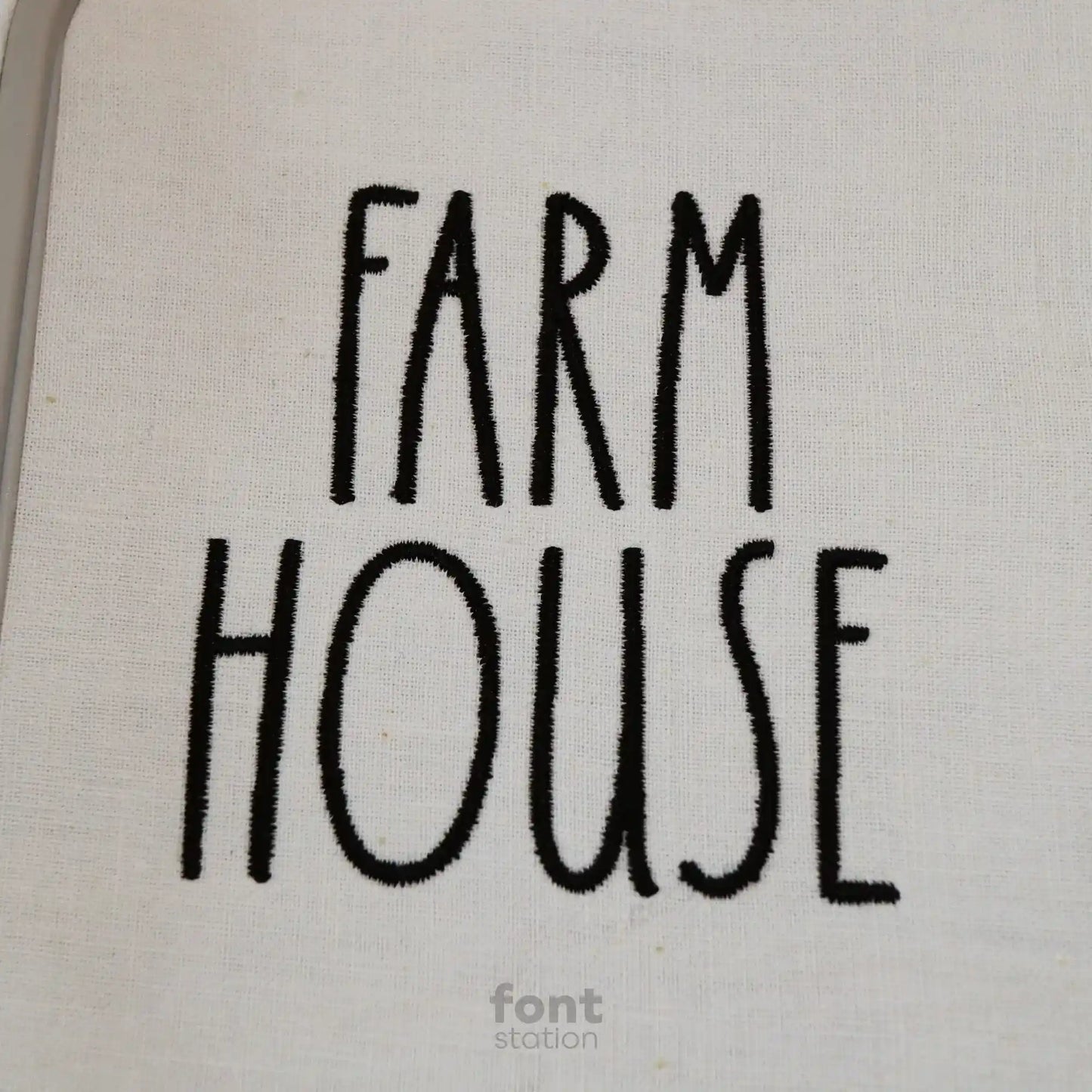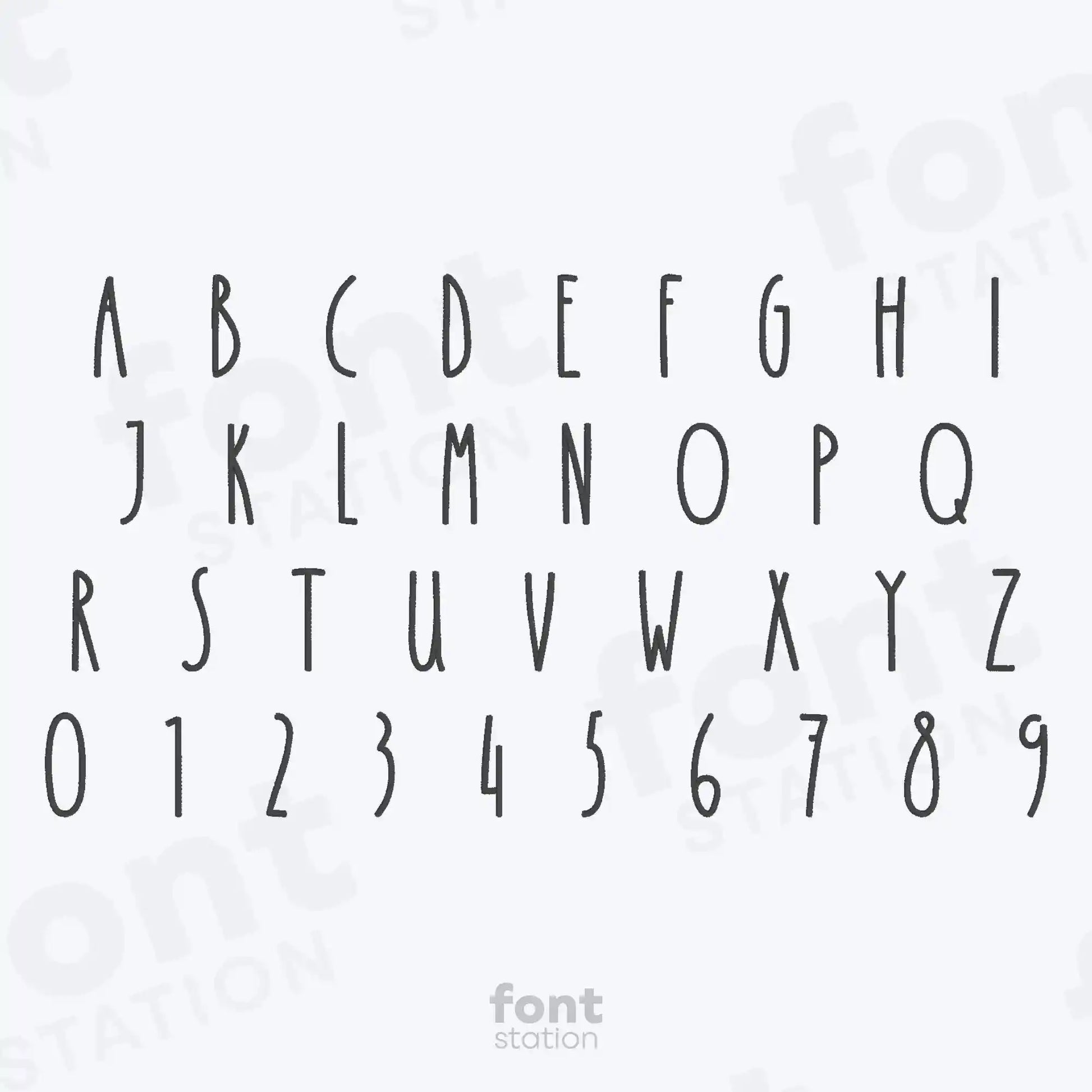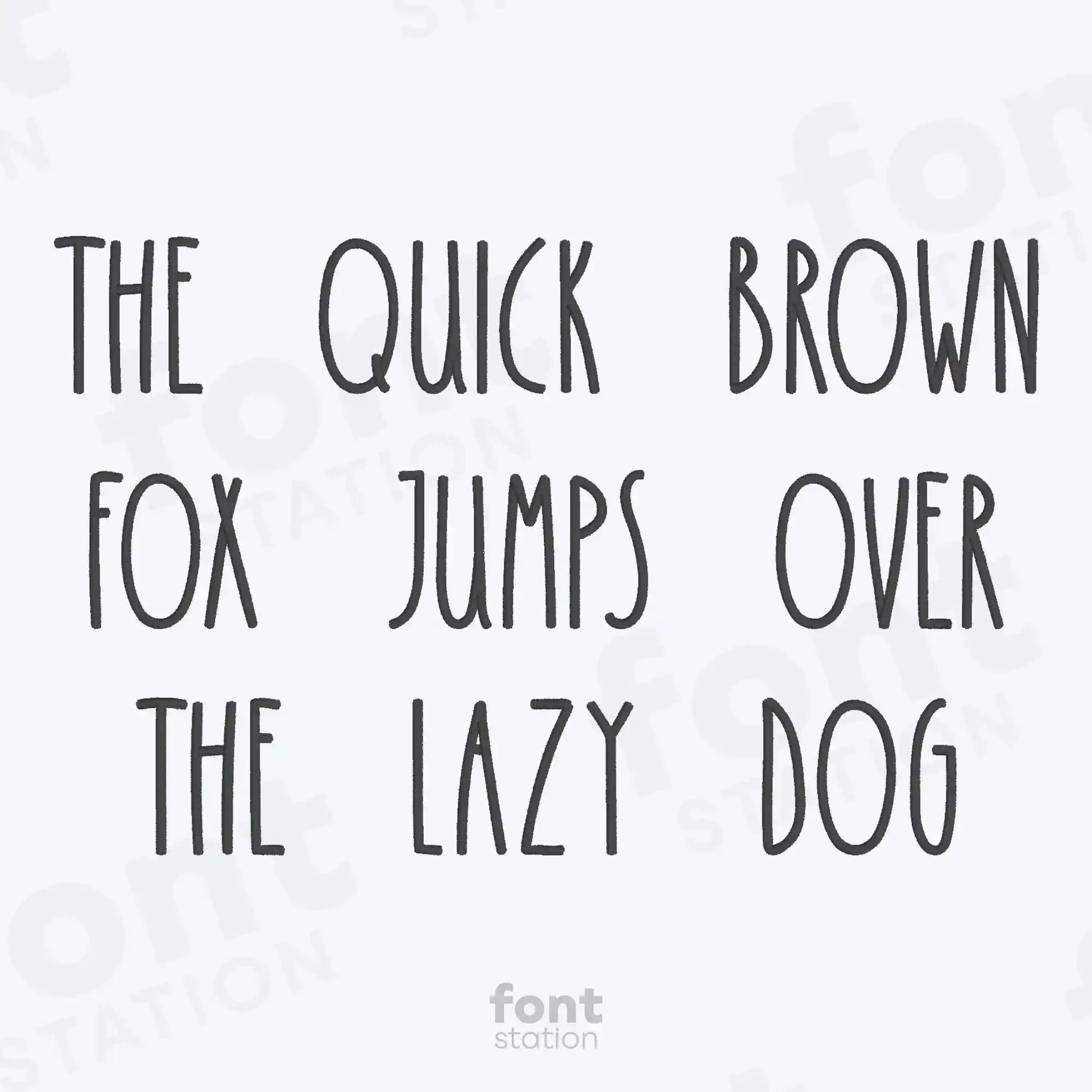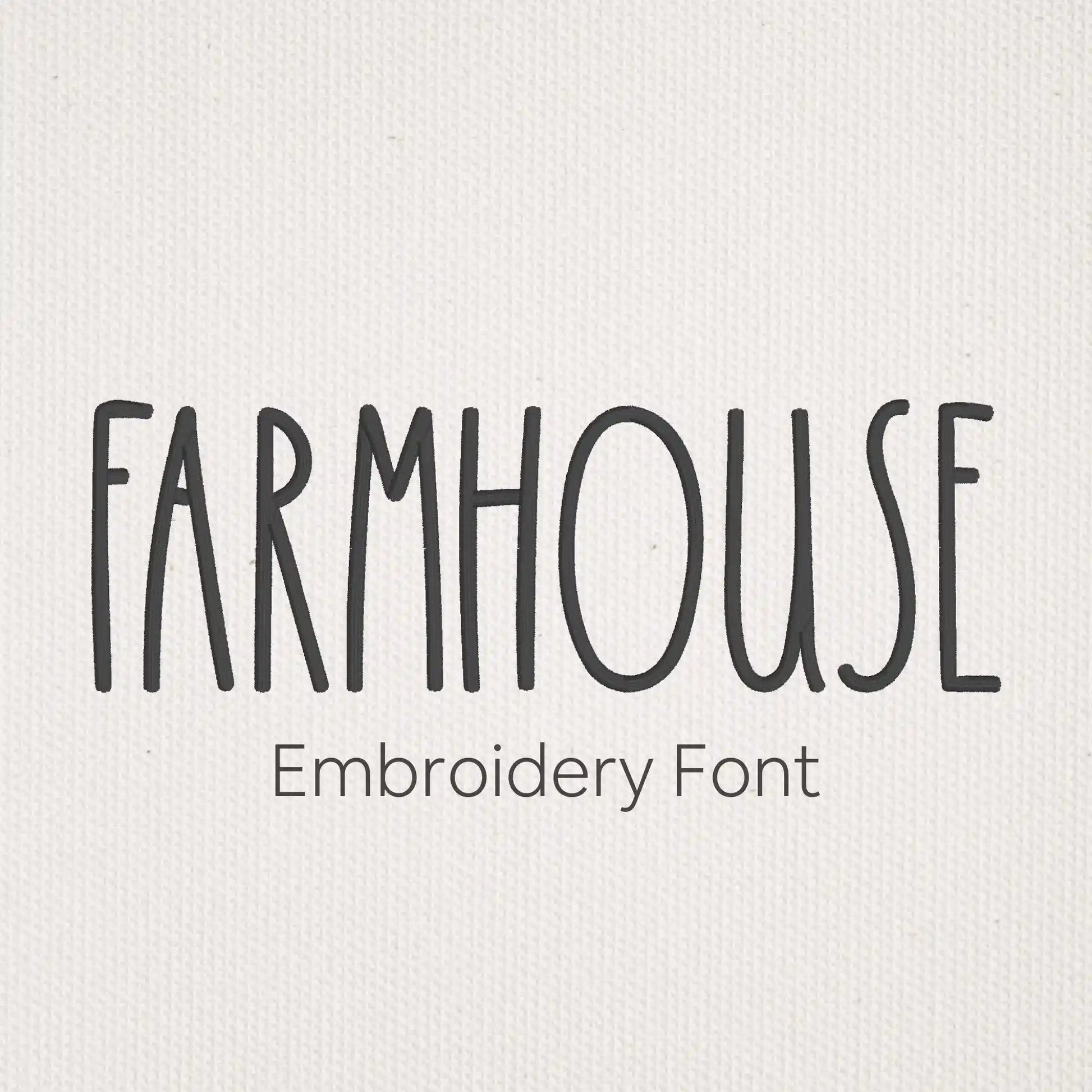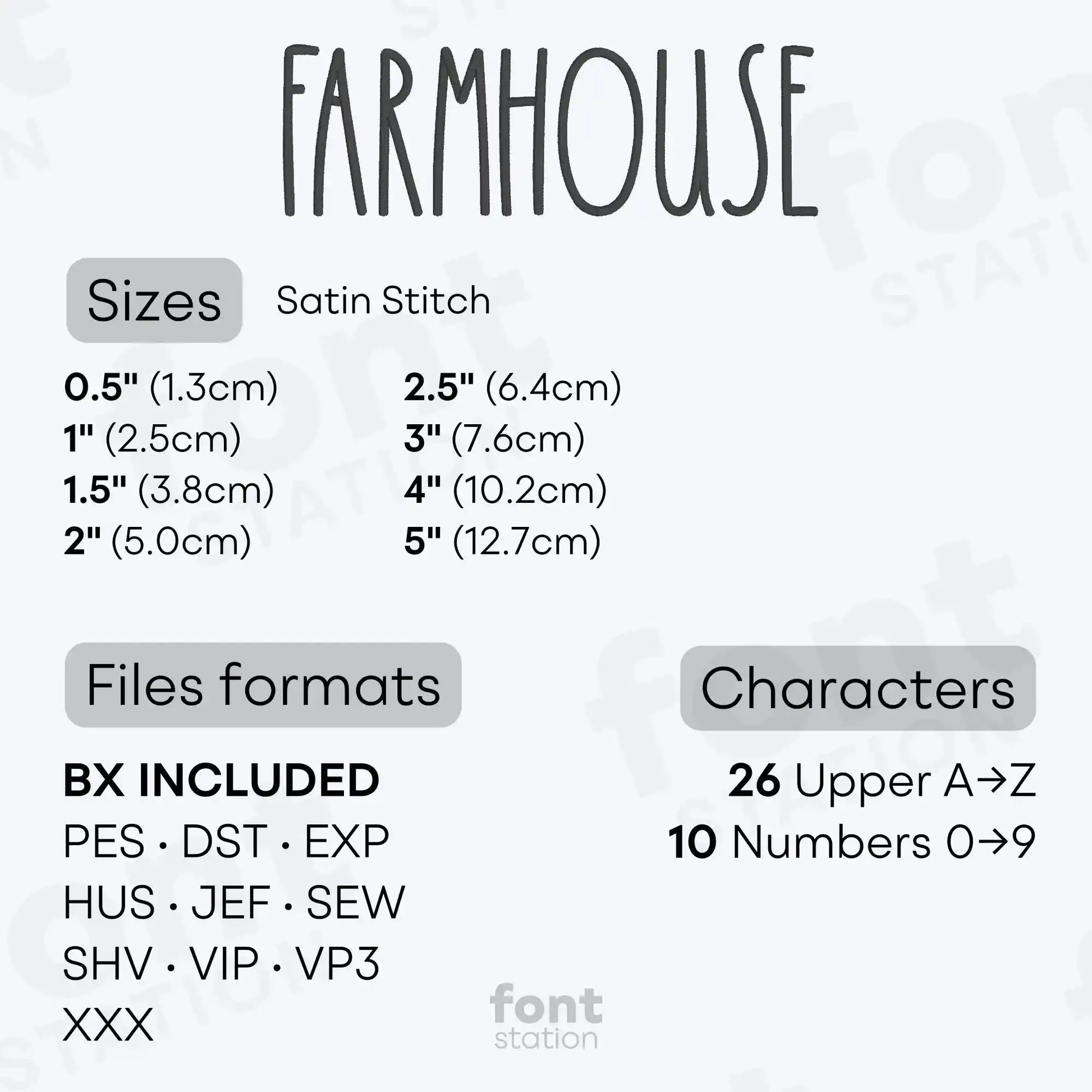
Farmhouse Embroidery Font
Our Farmhouse embroidery font is a charming, rustic alphabet made for machine embroidery. These handcrafted letters add cozy, farmhouse-style design to your stitched projects, perfect for personalized gifts, signs, and home décor.
About the Farmhouse Embroidery Font
Add a rustic style to your designs with our Farmhouse embroidery font!
Bring warm, rustic charm to your embroidery projects with our Farmhouse embroidery font. This handcrafted alphabet is professionally digitized for clean, crisp stitching on most fabrics. Perfect for farmhouse décor, cozy gifts, and country-style lettering, these machine-ready letters deliver vintage character.